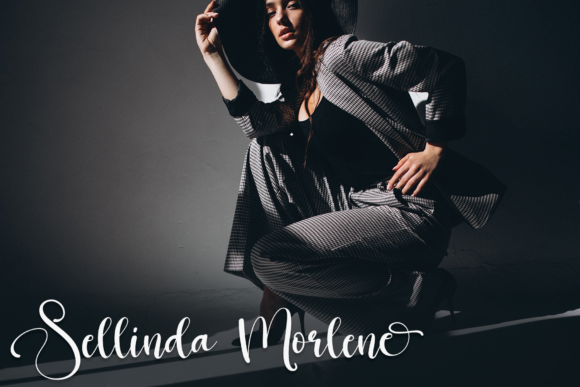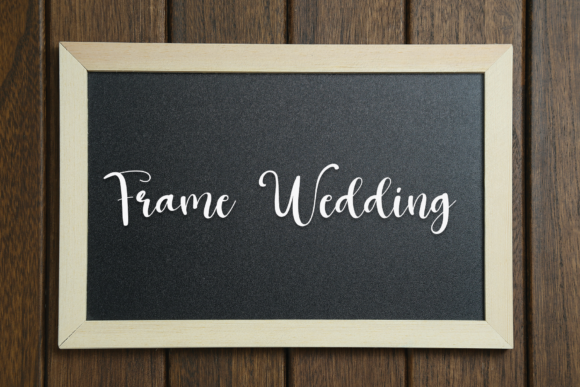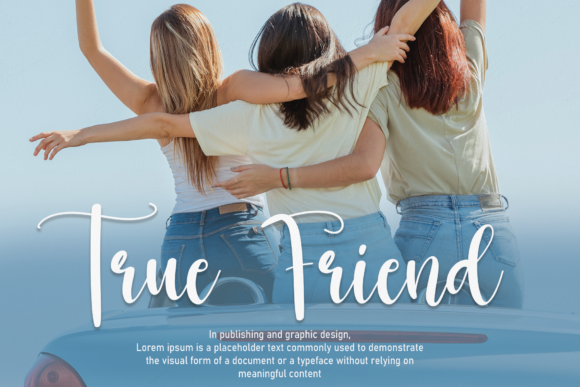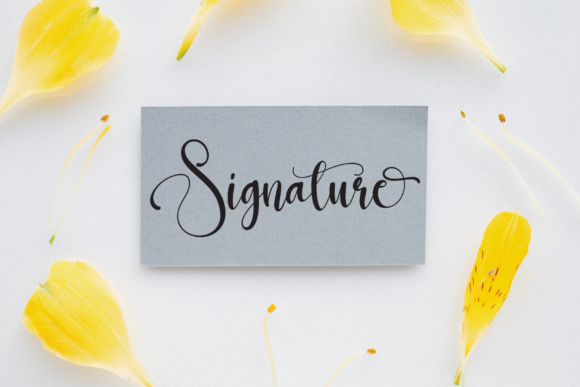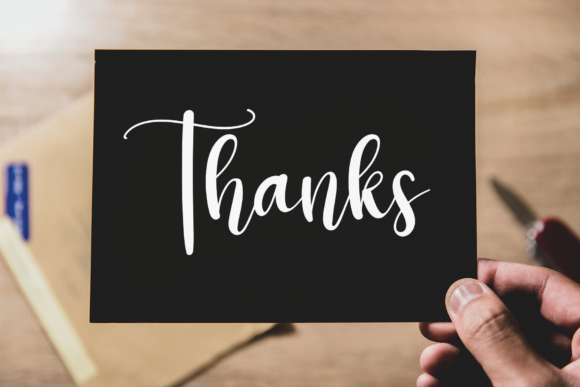
Strong Signature Font
About Strong Signature Font
Strong Signature is a beautiful script font perfect for wall displays, wedding invitations, social media posts, logos, advertisements, product packaging, product designs, labels, photography, watermarks, invitations, stationery, and any project that requires a handwritten touch.